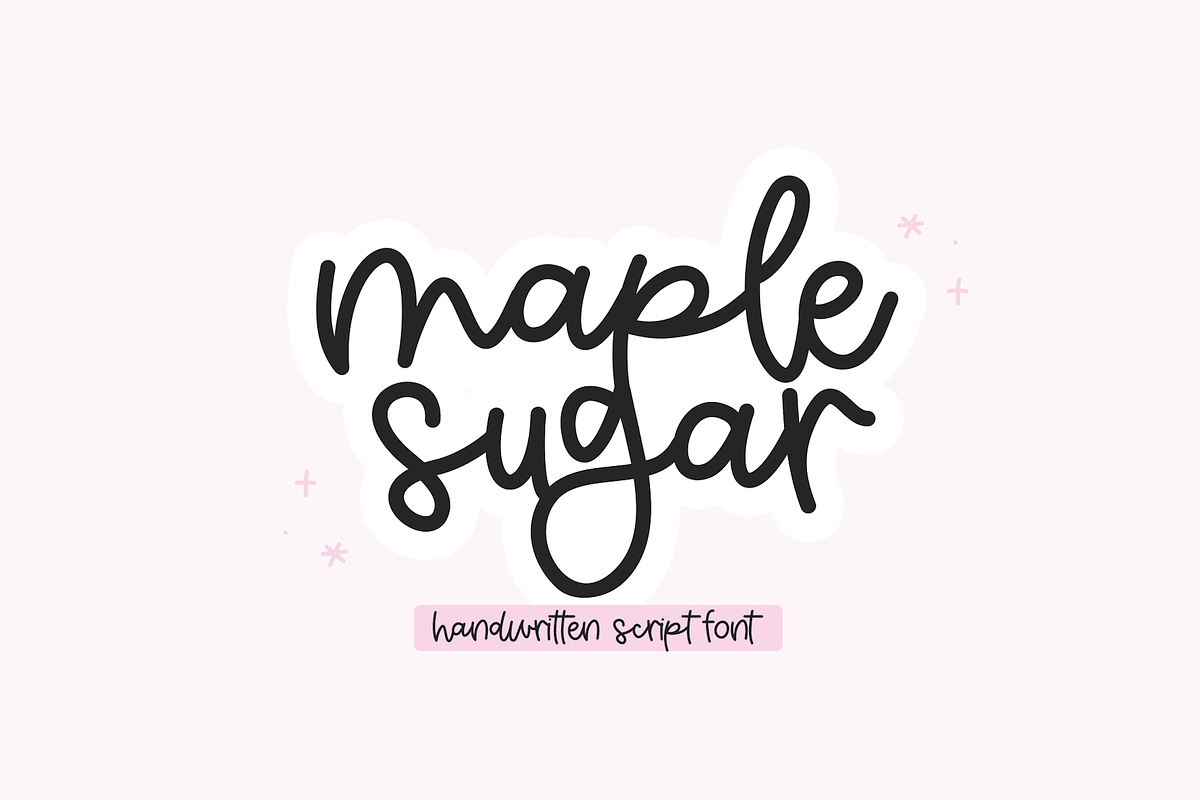
Maple Sugar | Modern Script Font Free Download
Maple Sugar Free Download is a charming and elegant modern script font that adds a touch of sophistication to any design. With its flowing curves and handwritten aesthetic, Maple Sugar is perfect for branding, wedding invitations, social media graphics, and more. Whether you're a designer looking to elevate your typography game or a hobbyist searching for a stylish script, this font offers the versatility and character you need.
Crafted with attention to detail, Maple Sugar brings a smooth and natural feel to your work, making it ideal for logos, packaging, and creative headlines. Its modern flair blends well with both minimalist and decorative design elements, giving you the freedom to explore unique visual combinations.